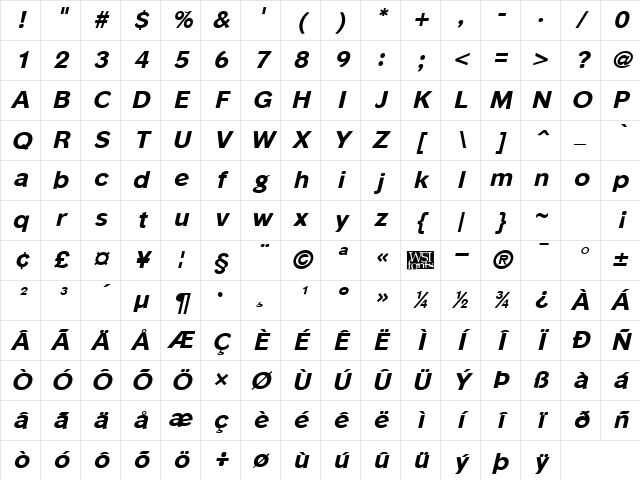
PhinsterExtrabold Italic
PhinsterExtrabold Family
Design Context for PhinsterExtrabold
PhinsterExtrabold is a composed and adaptable typeface that performs quietly and consistently across a wide range of design contexts. The slanted form adds forward momentum and visual energy. Its bold stroke weight gives it real presence on the page.
Pro Tip: Use PhinsterExtrabold for emphasis, pull quotes, and subheadings where its slanted energy can add rhythm to the layout.